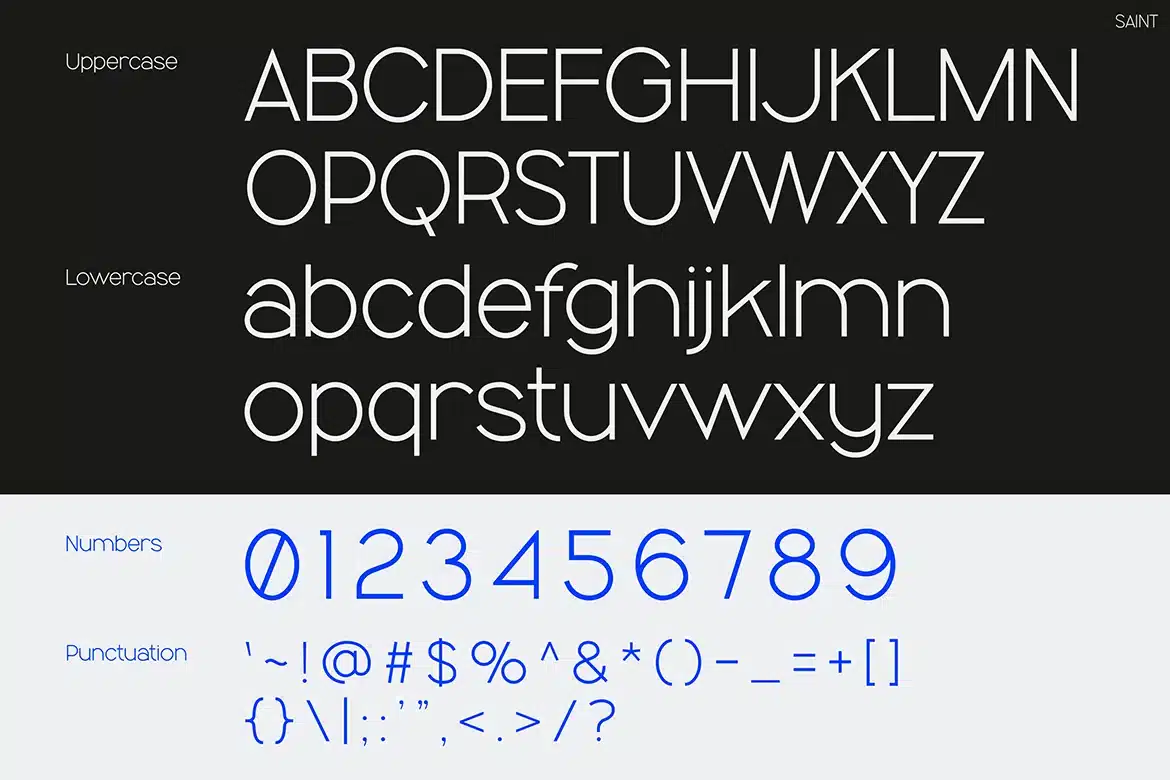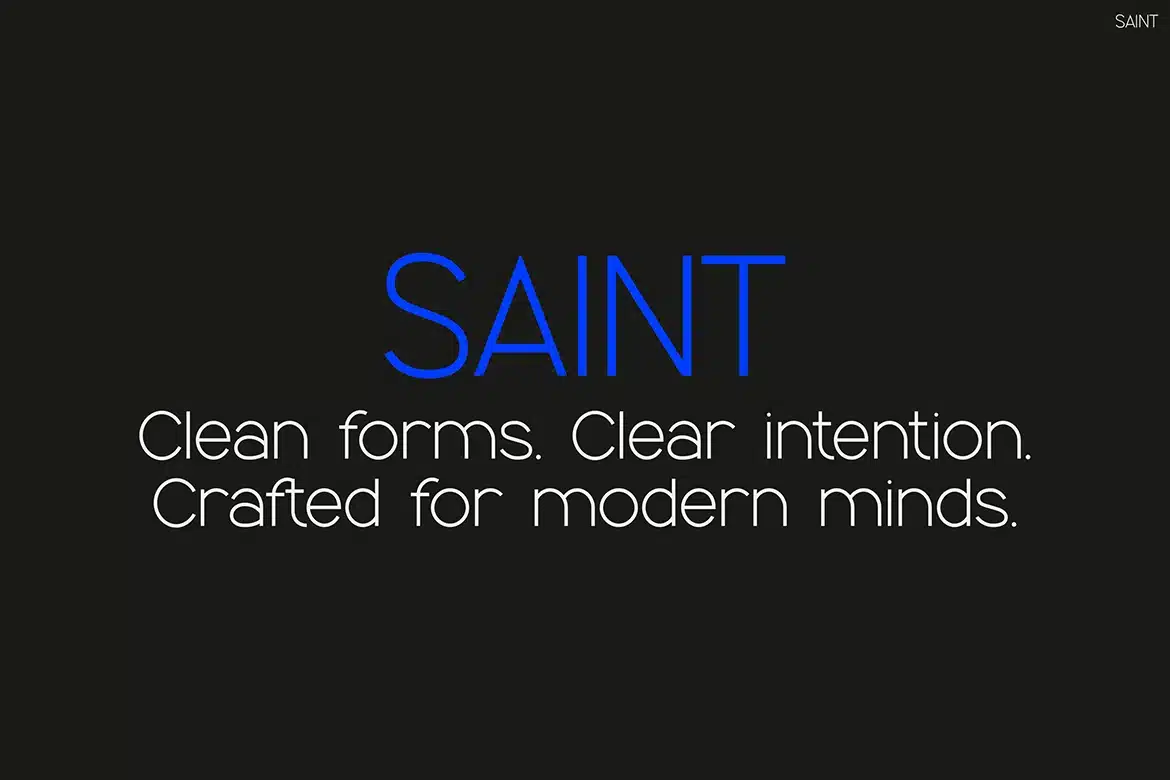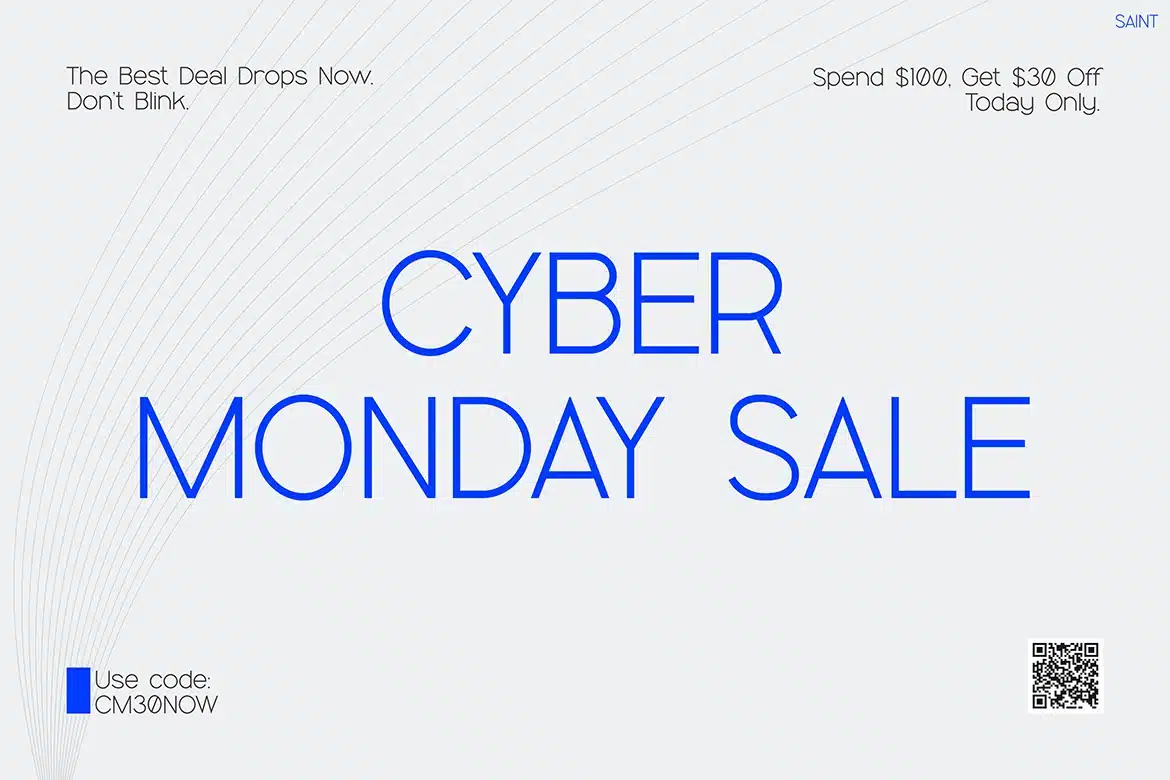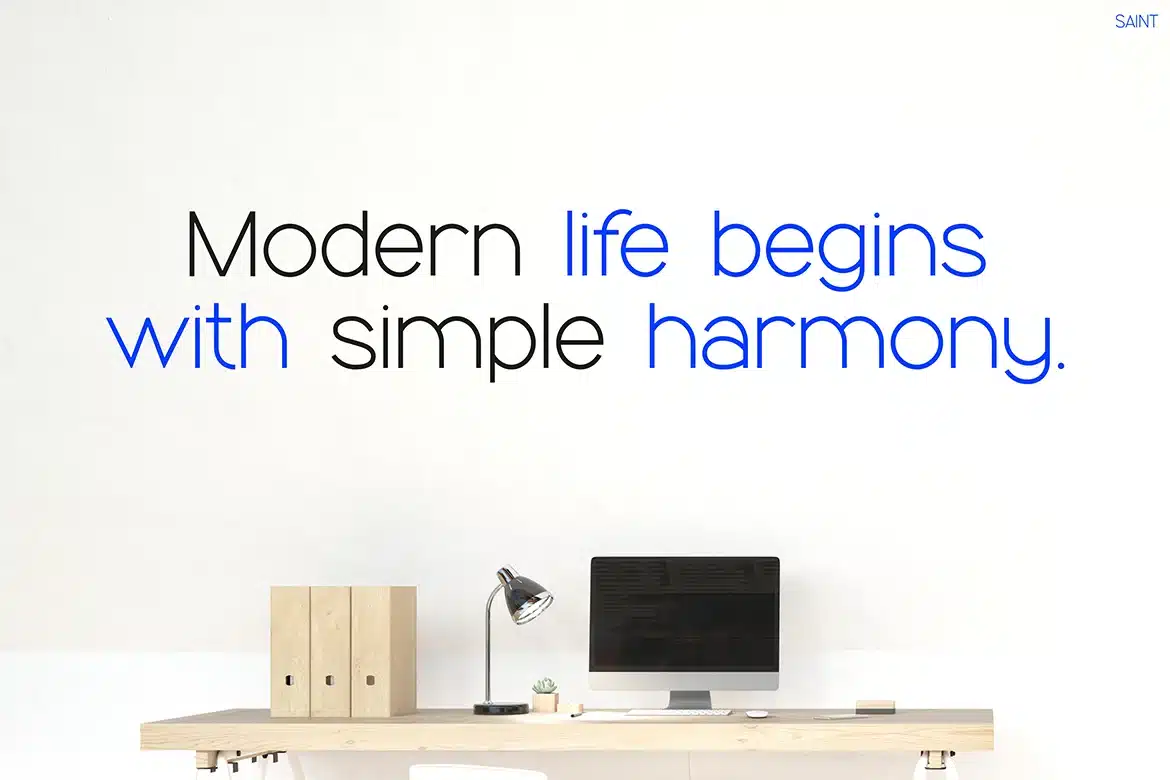
Saint – Modern Geometric Typeface Font
Saint – Soft Tech Letterform
Saint is a geometric display typeface that blends digital clarity with smooth proportion for modern branding. Its structure is clean, with sharp terminals and low-contrast strokes, radiating a minimalist, futuristic feel. Designed with a focus on linear harmony, Saint’s letterforms offer a calm yet confident tone — perfect for Instagram visuals, fashion layouts, or tech-forward brand identities. Whether you're working on app UI or sleek editorials, Saint balances structure and aesthetic grace with ease.
From stylish startup decks to cyber sales campaigns, Saint empowers designs with sleek presence and thoughtful rhythm. Its refined flow makes it ideal for designers needing a reliable and visually appealing type system for editorials, landing pages, posters, tech brands, and mobile UI. The font’s ultra-modern personality translates effortlessly across screen and print, making it a versatile tool for digital-forward creators.
Key Features:
- Minimal Aesthetic: Balanced geometry and subtle curvature offer a clean, uncluttered visual identity
- Modern Functionality: Works beautifully across mobile interfaces, responsive websites, and sleek packaging
- Digital-First Form: Built for clarity and legibility across high-res and screen-based media
- Harmonized Flow: Smooth rhythm between characters for better readability in headlines and subtext
- Versatile Application: From bold headlines to soft branding moments, it fits effortlessly
- Uppercase A–Z, Numbers, Punctuation & Symbols